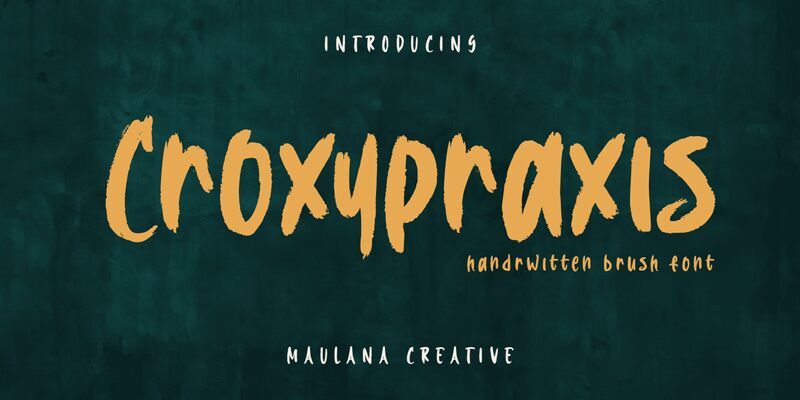
Croxypraxis Free Regular
Croxypraxis is a bold brush font by Maulana Creative that adds a touch of spontaneity and playfulness to any project. Its condensed width makes it perfect for designs that require a strong, impactful headline or call-to-action, while its bold weight ensures maximum visibility and readability. Use Croxypraxis for advertising campaigns, product packaging, logos, social media graphics, and more. The brush style gives your designs an organic feel with its natural-looking strokes and curves. With Croxypraxis, your projects will stand out from the crowd with an eye-catching font that exudes creativity and energy!